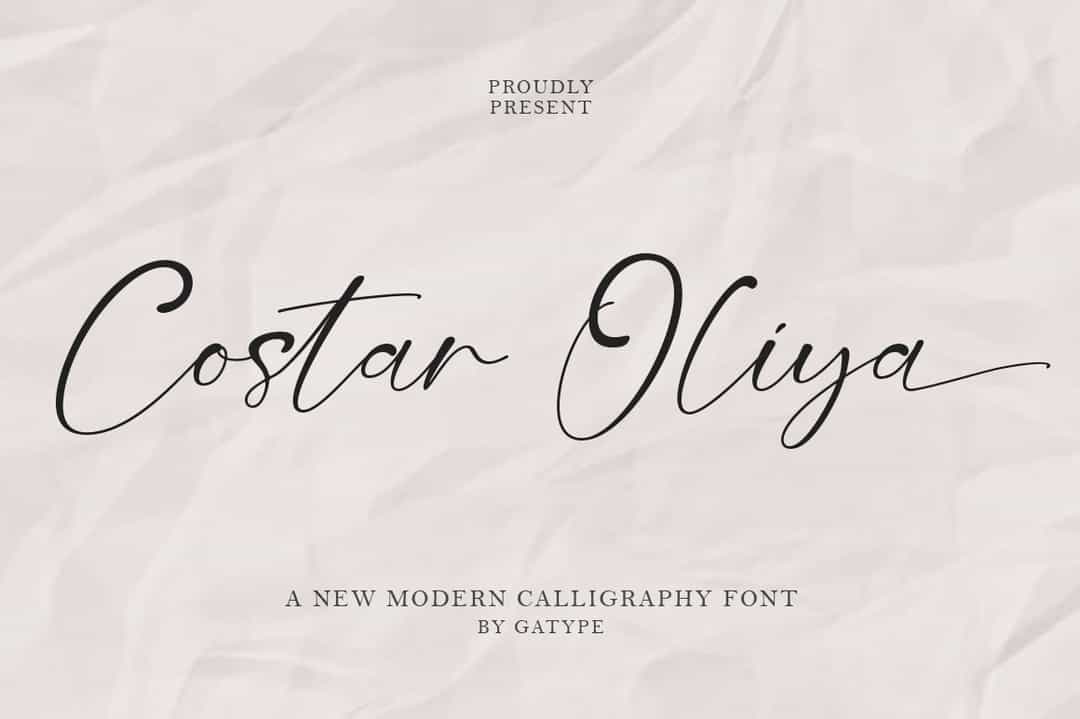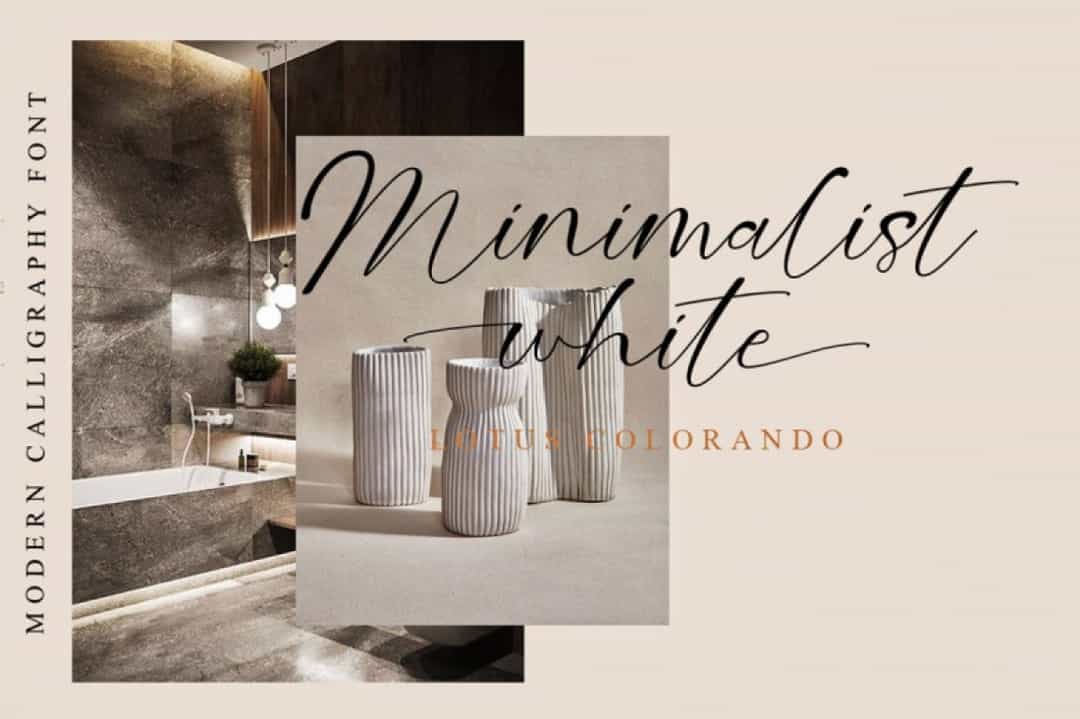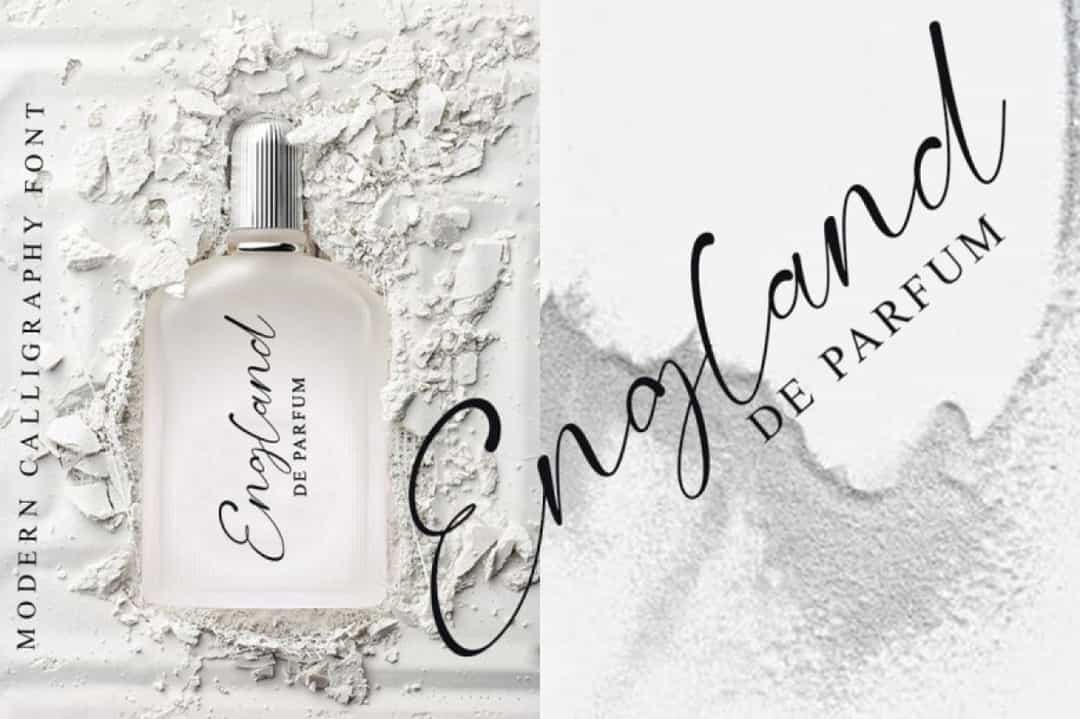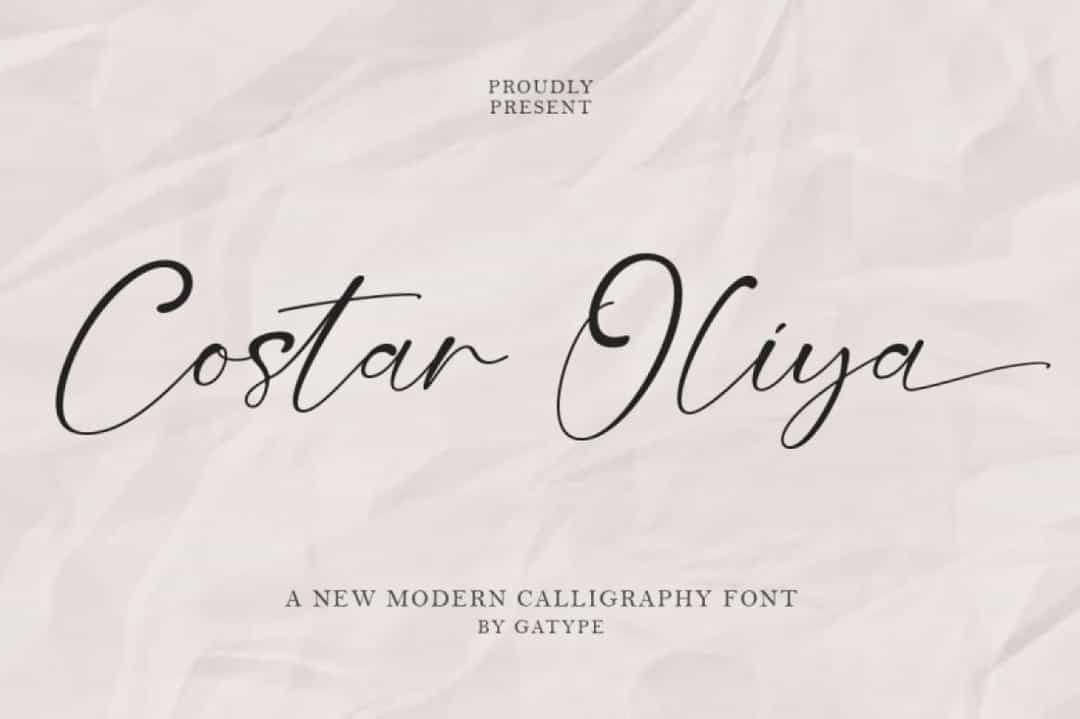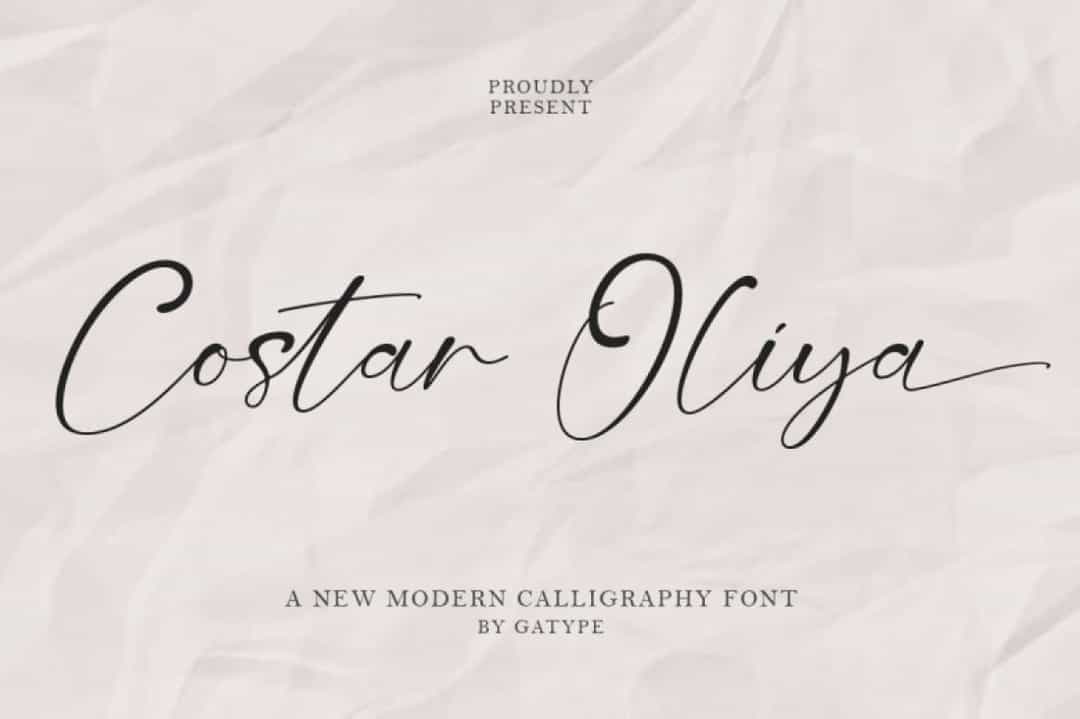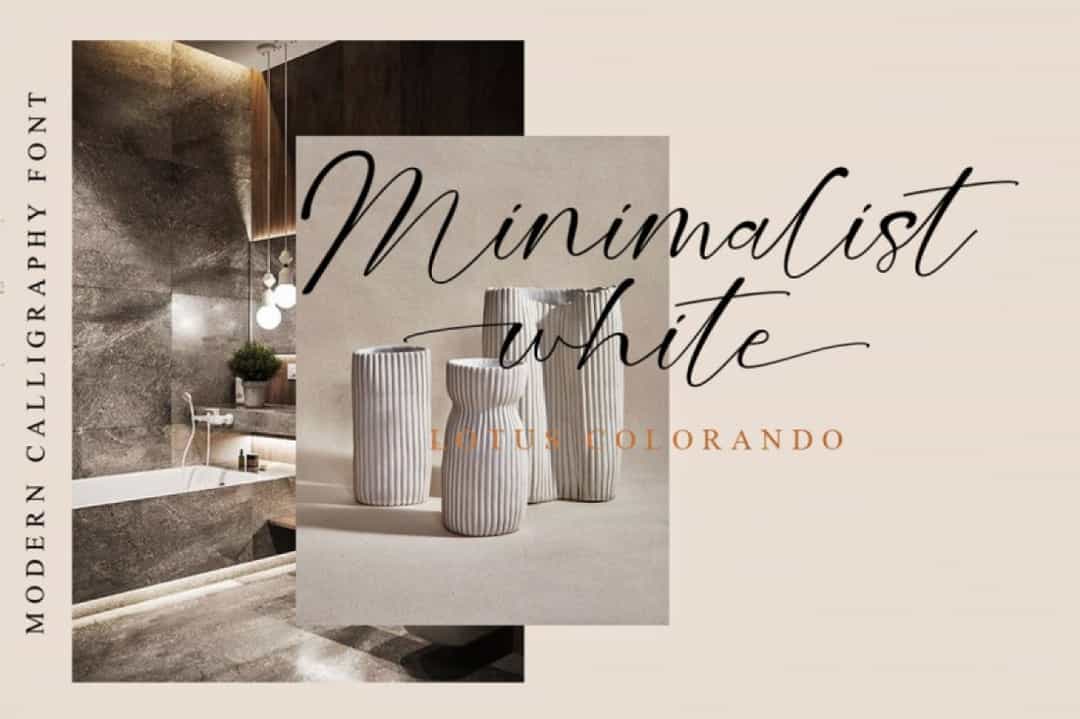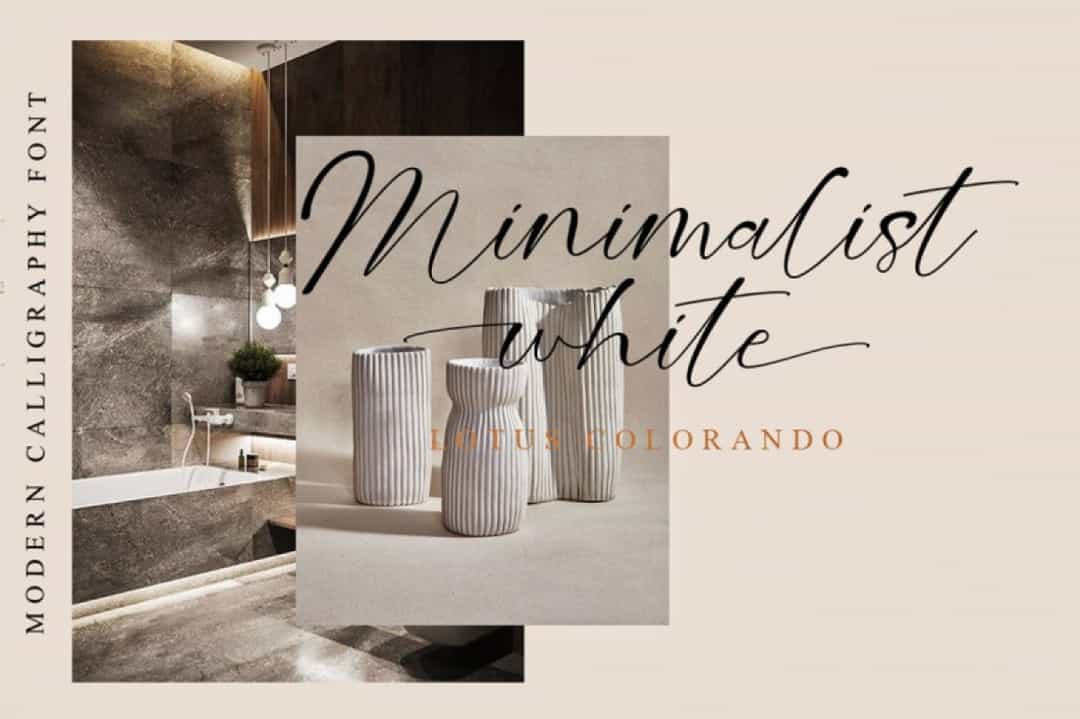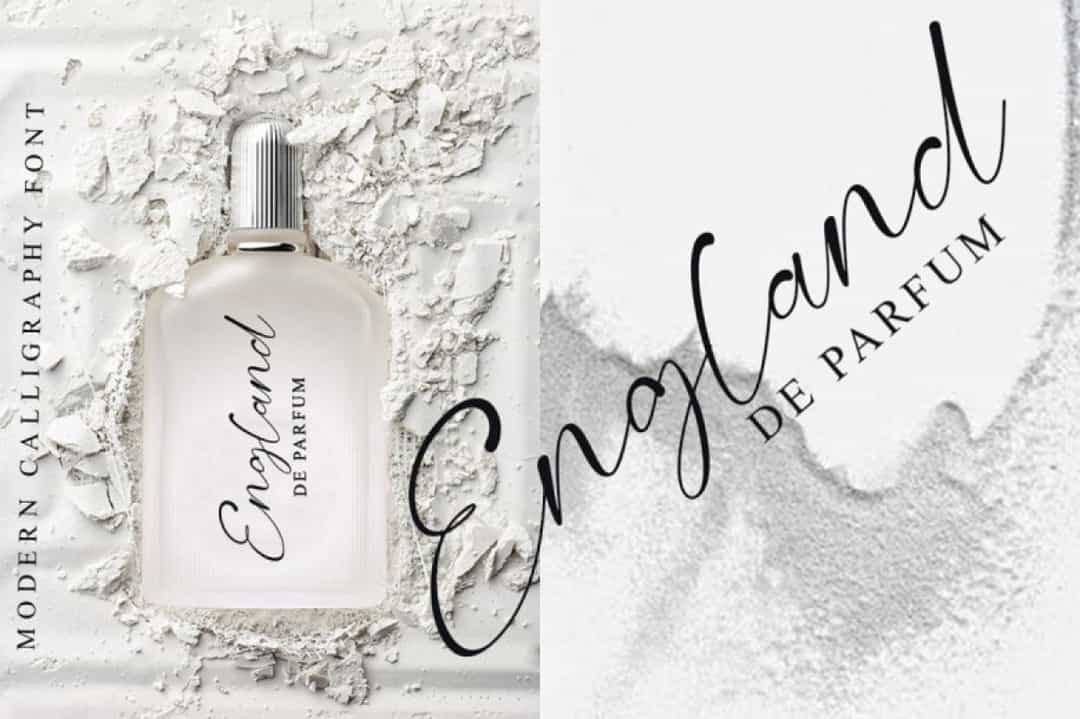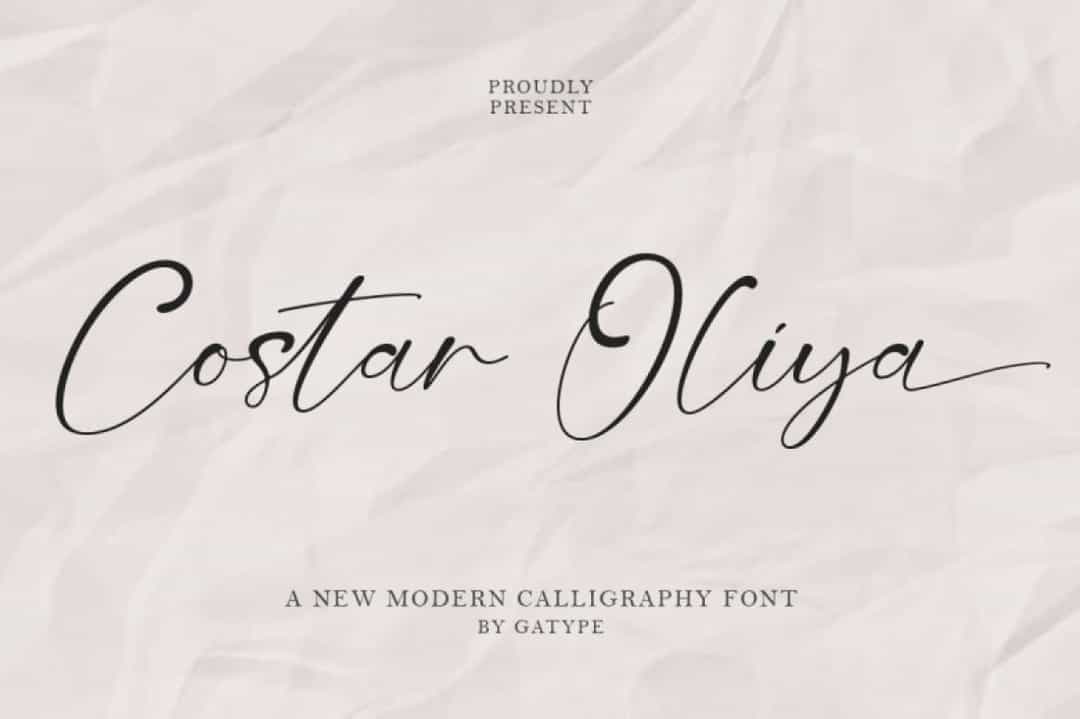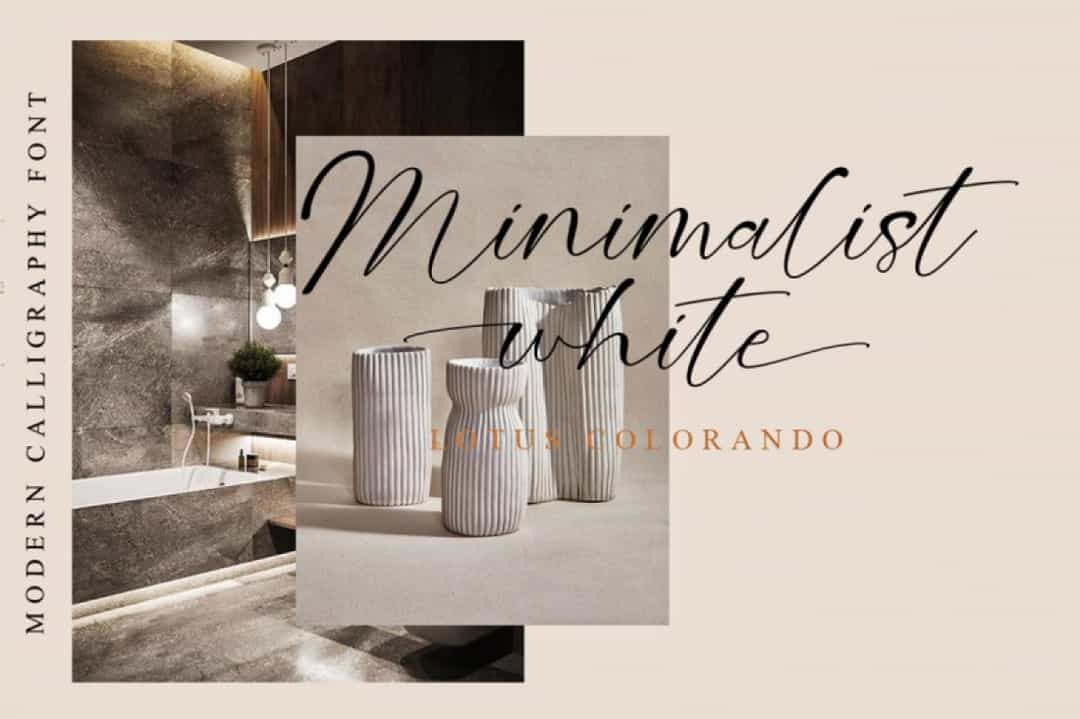
Costar Oliya is an expressive contemporary calligraphy script font with humorous characters and subtle touches like binder and other alternatives for added creativity work. Ideal for logos, Social Media posts, movie titles and book titles in movies/books as well as shorter text fonts that require long text fonts this font also makes an excellent secondary font choice with either serifs or sans serifs for secondary text font usage.